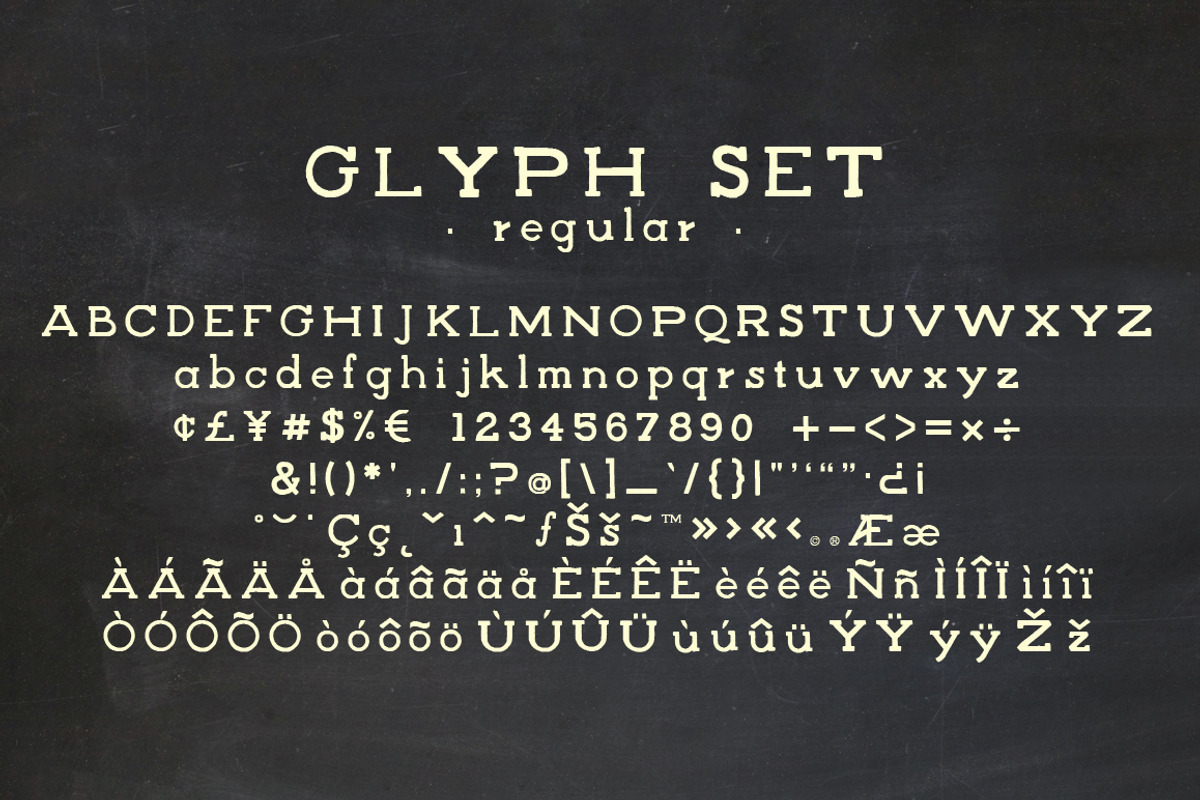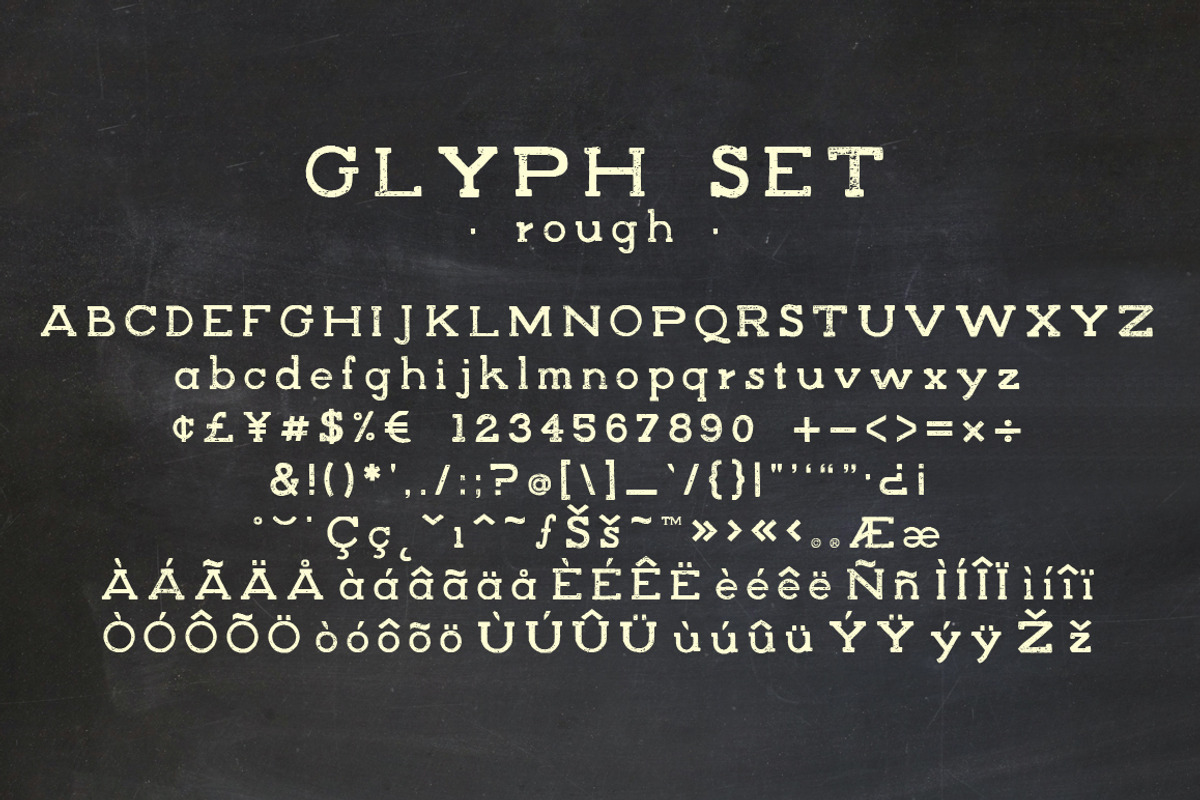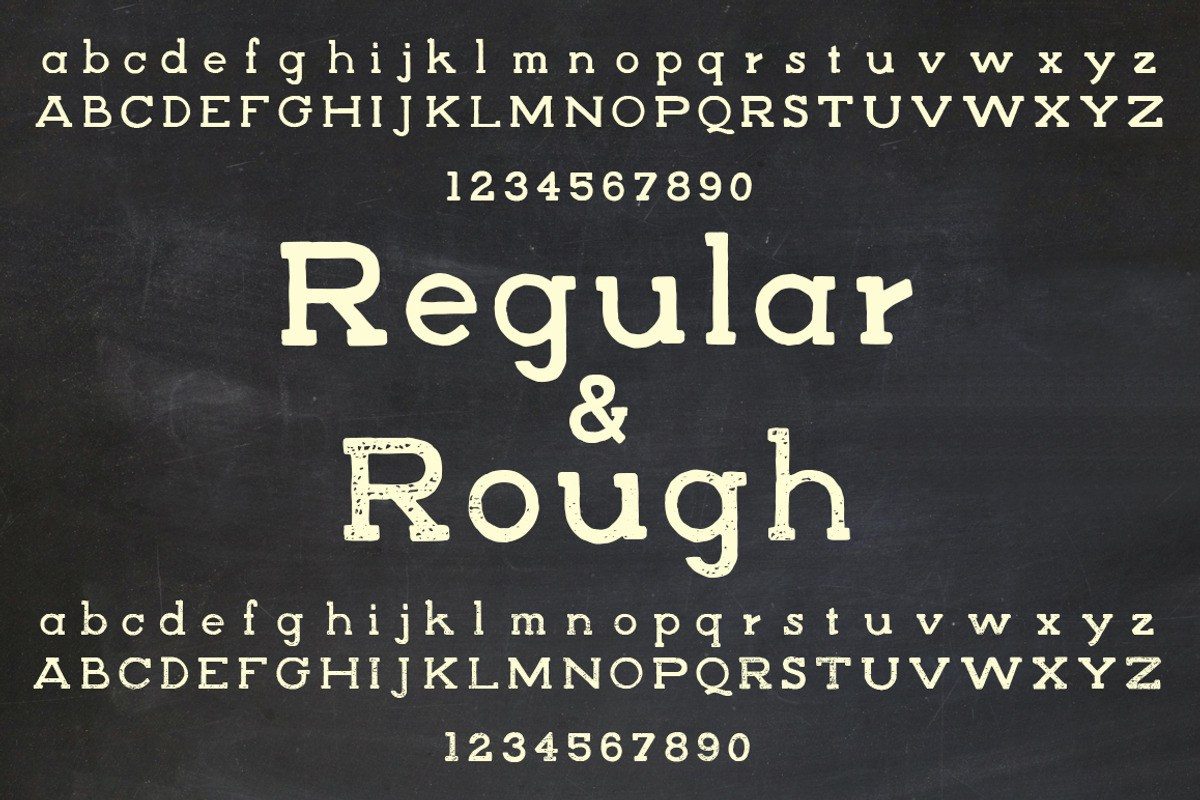
Schoolmarm Typeface
Schoolmarm Typeface by the Red Rocket Rebellion is a font selected for branding, posters, packaging, typography.
- It comes with regular and rough and a decent sized glyph set.
- Schoolmarm Regular
- Schoolmarm Rough
Why Schoolmarm Typeface is worth a look
Schoolmarm Typeface by the Red Rocket Rebellion fits naturally into Branding, posters, packaging, typography.